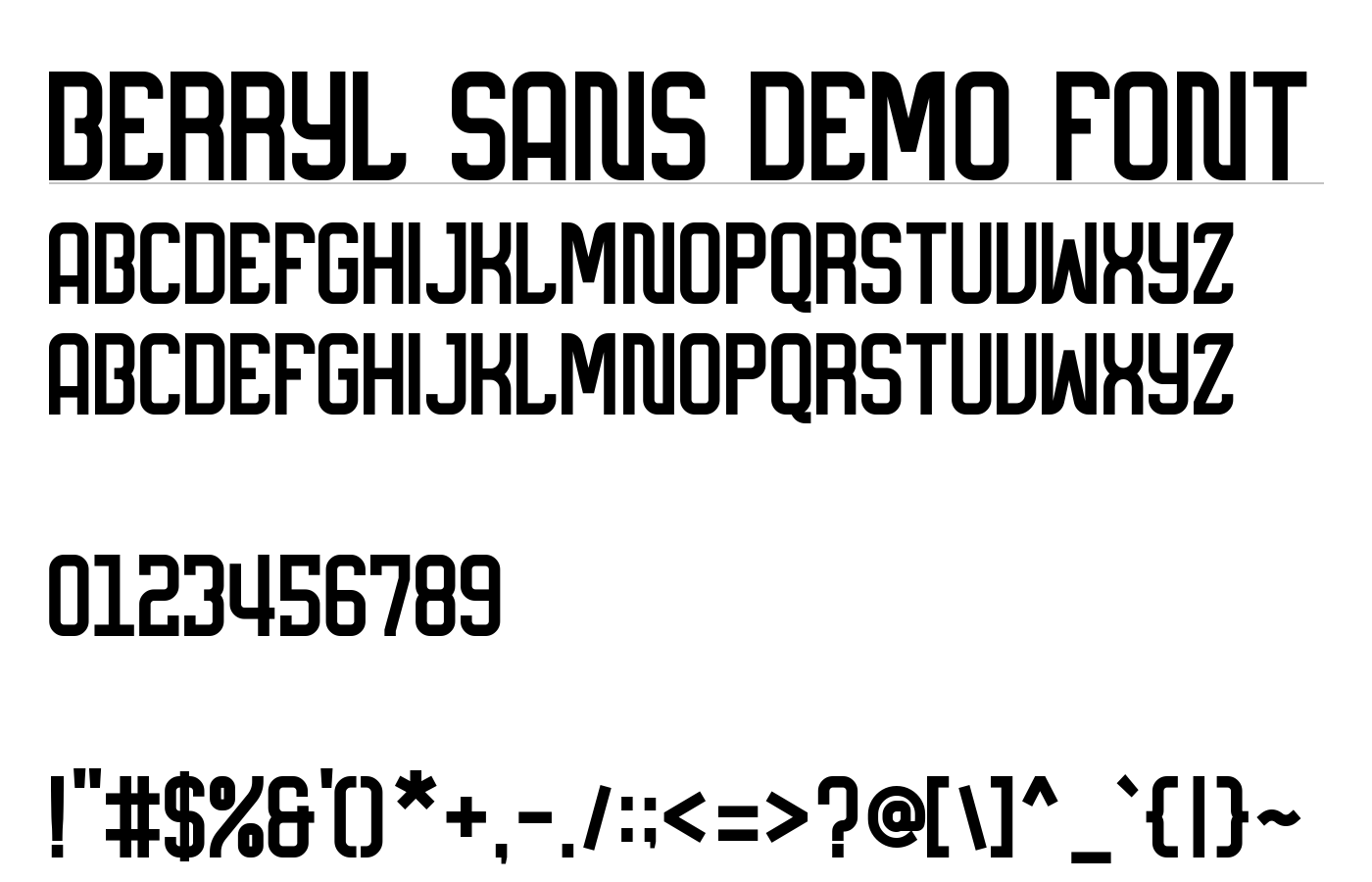
Berryl Sans DEMO is a bold, condensed sans-serif font with a tall x-height and low stroke contrast, giving it a strong, modern presence. Its squared shapes and geometric, slightly industrial style make it ideal for headline and display use where a confident, urban feel is desired. This font works well for branding, posters, and editorial projects that need a contemporary and impactful look.
Berryl Sans DEMO font